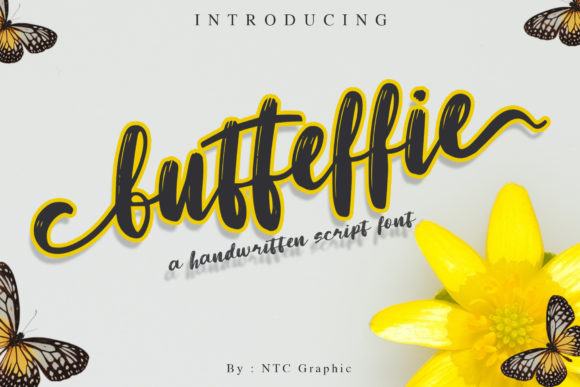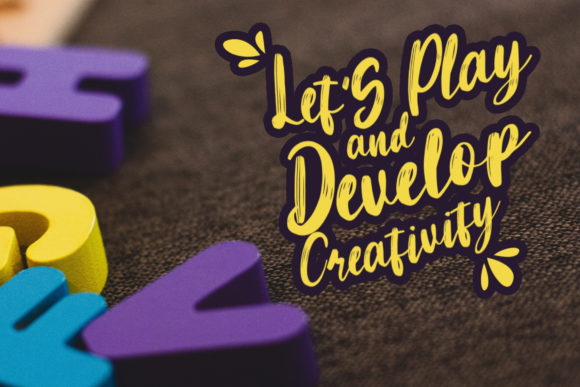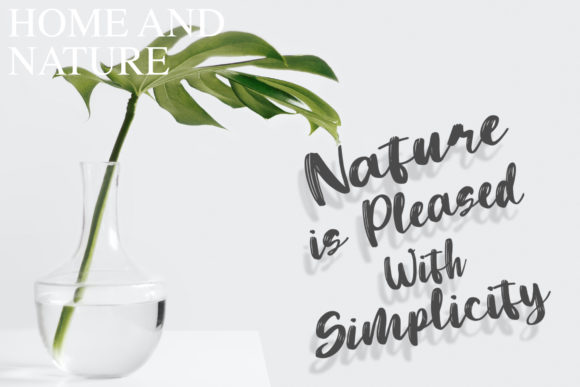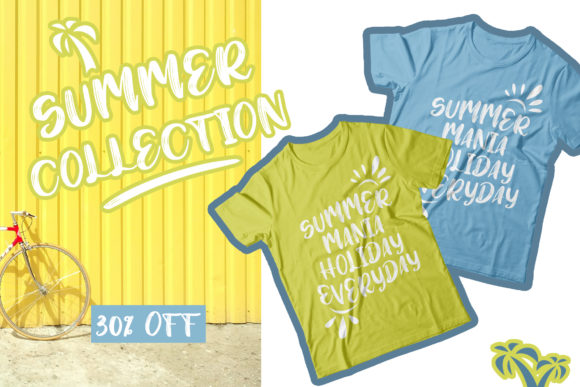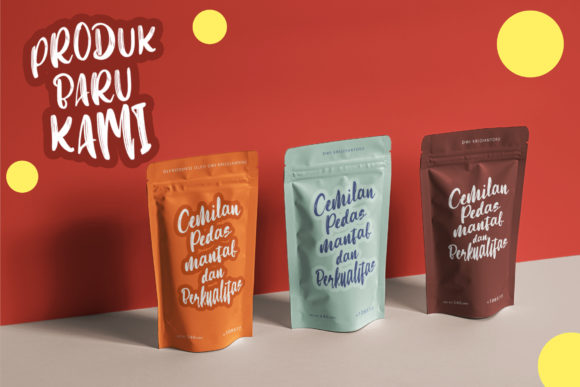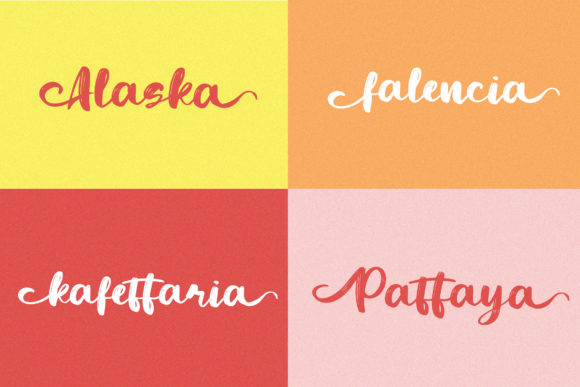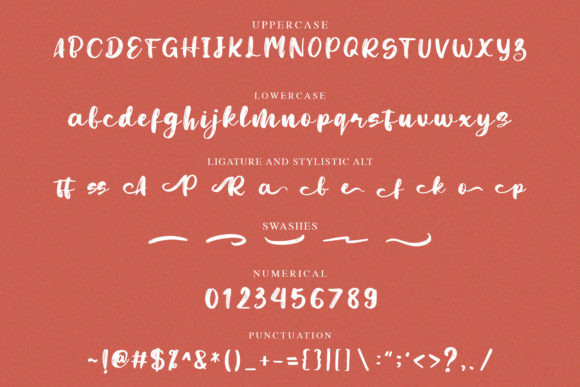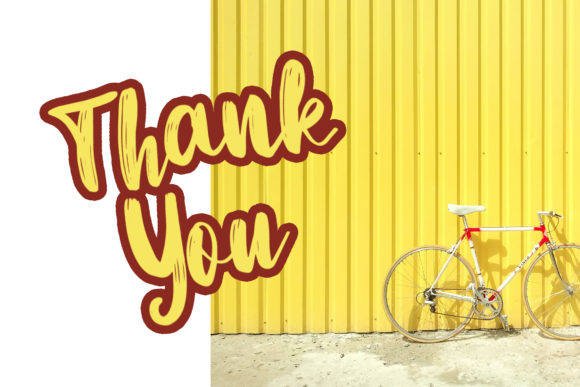
Butteffie Font
About Butteffie Font
Butteffie is a beautiful, fun handwritten font, created by using a brush pen. Clean and a little bit quirky, this font is the perfect fit for all of your logos, branding, social media, and crafty DIY projects.